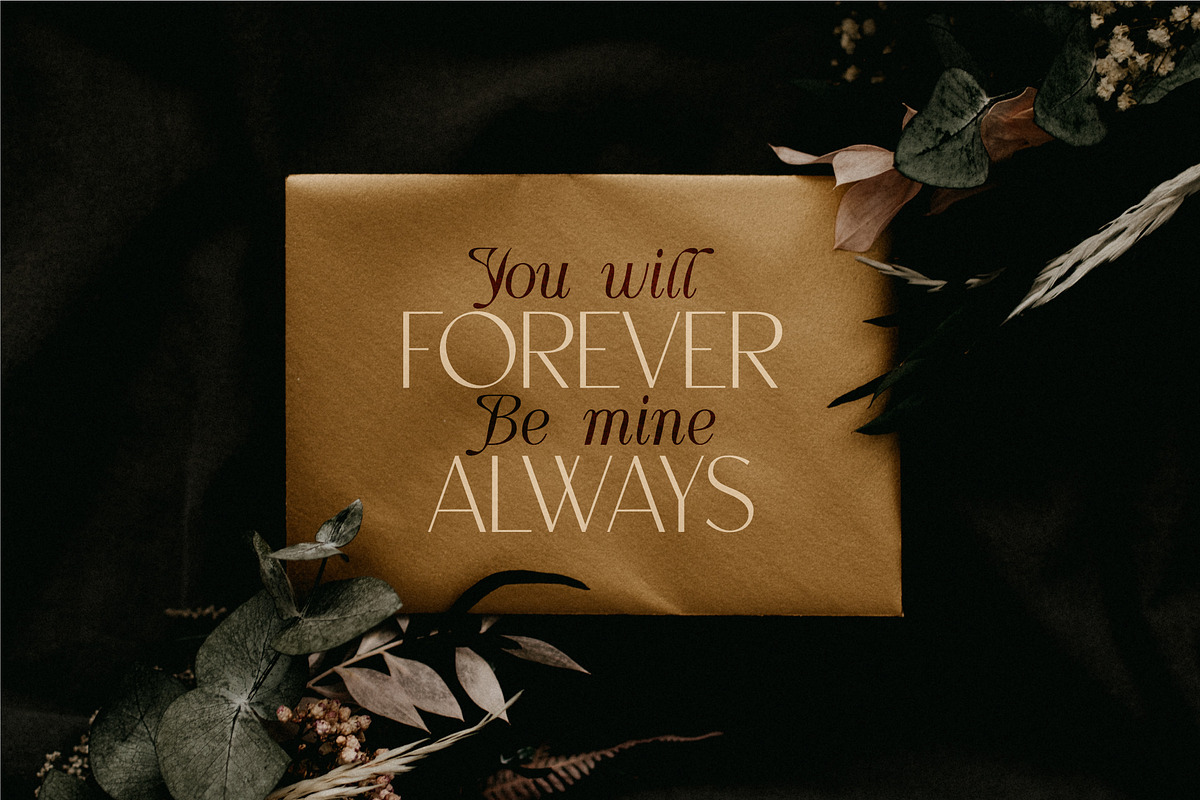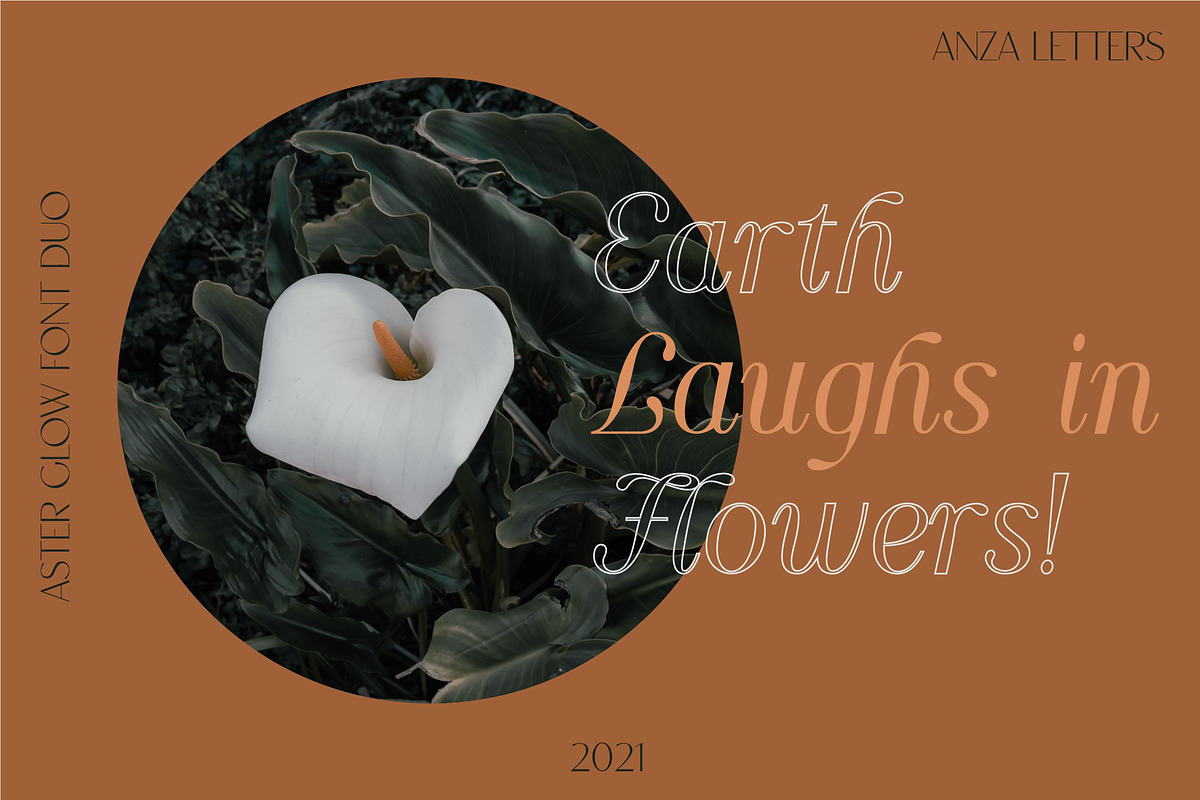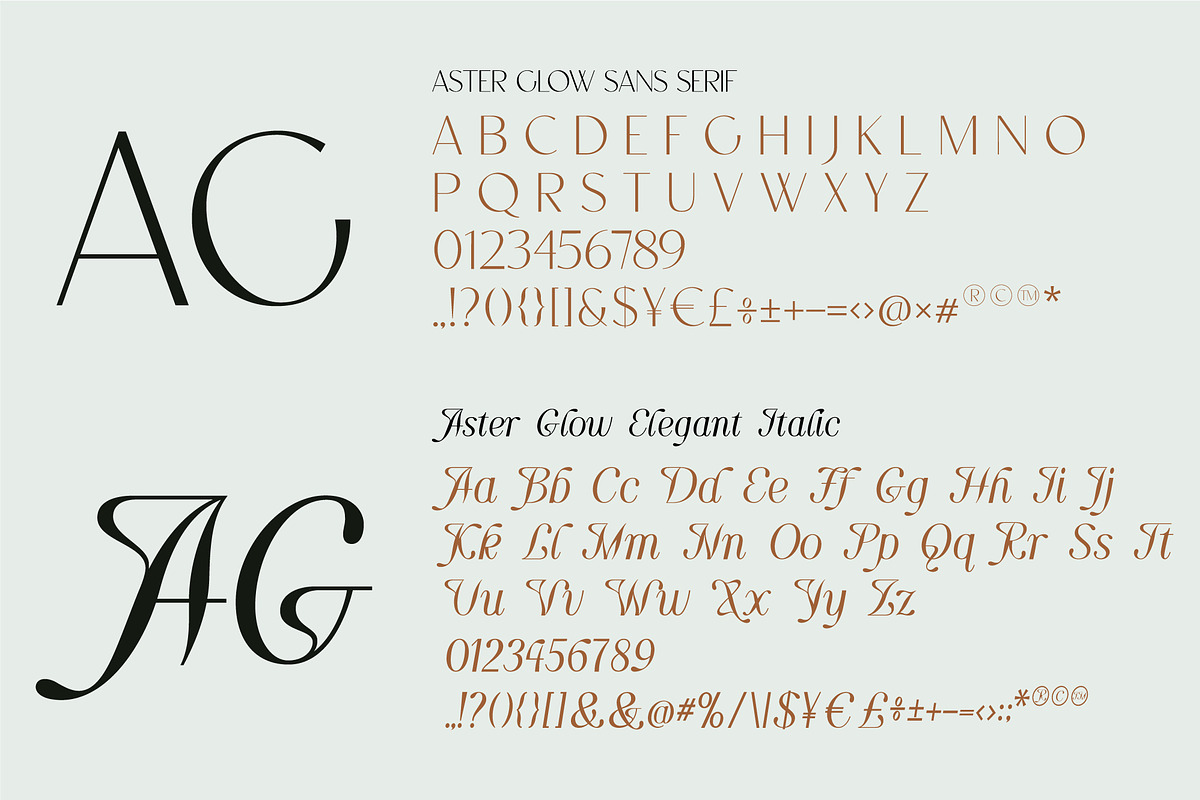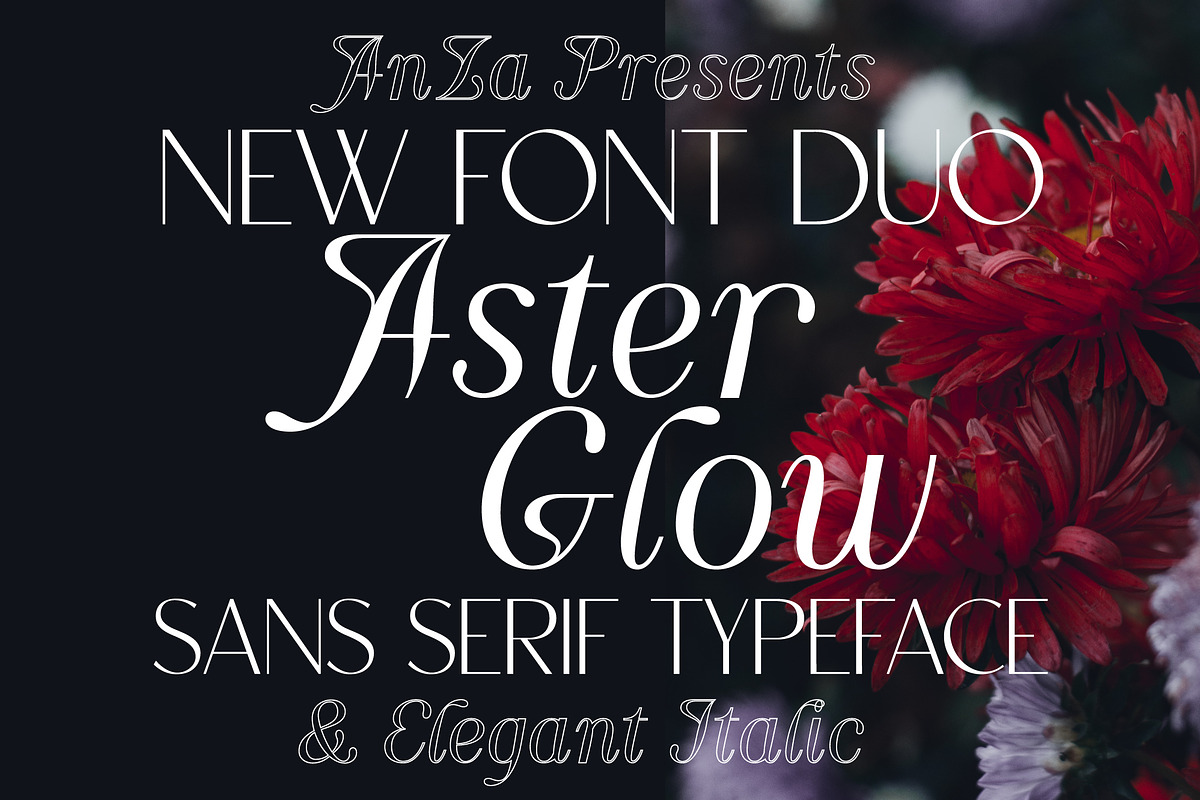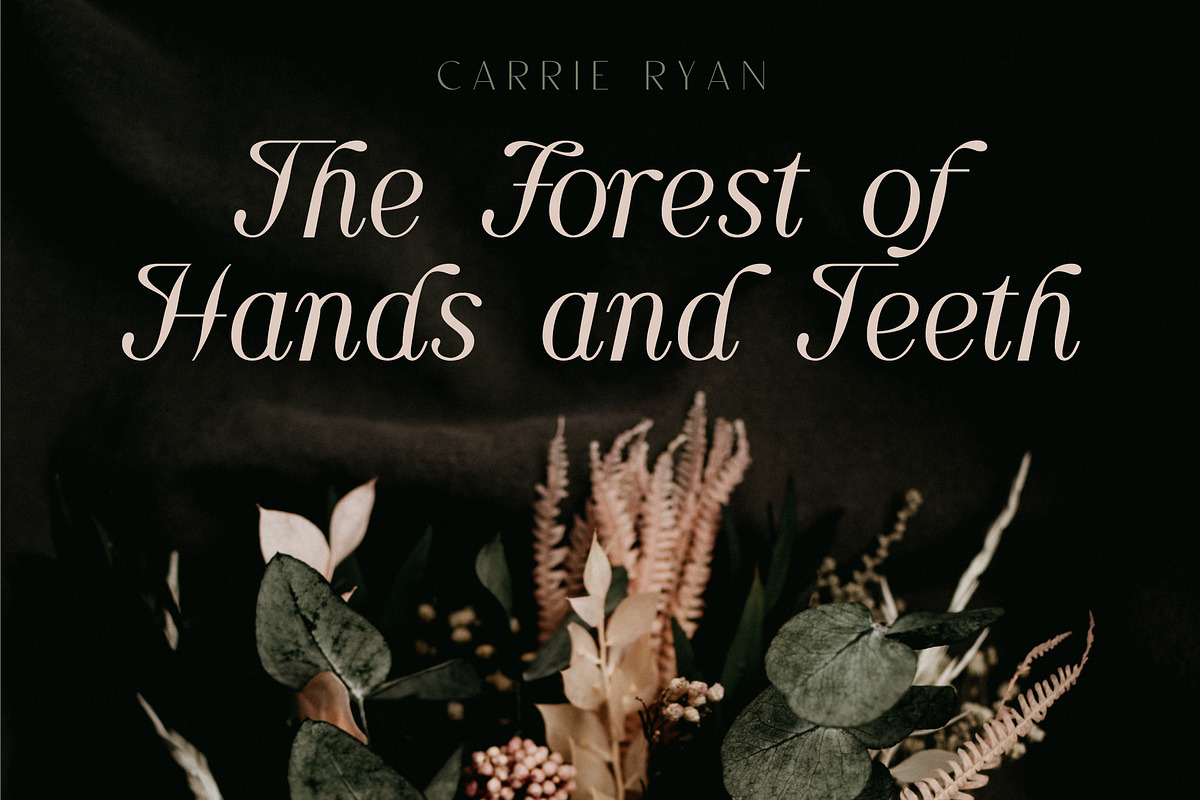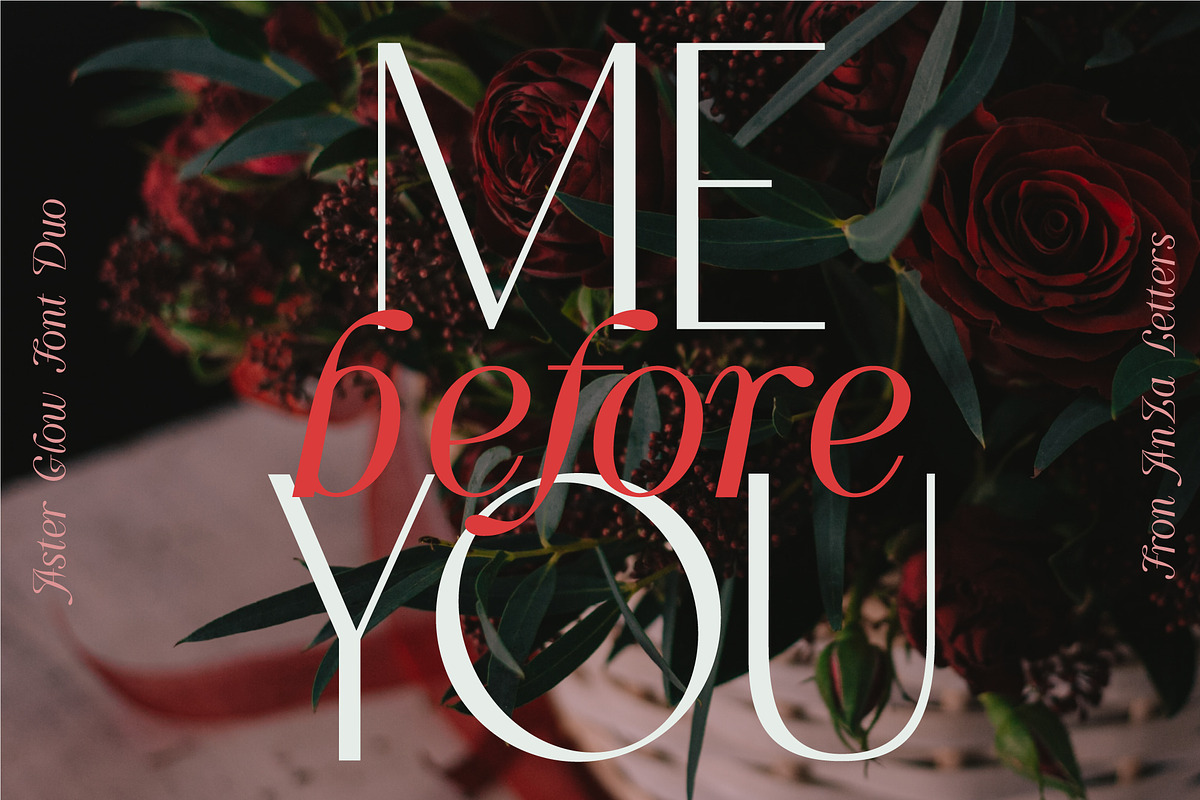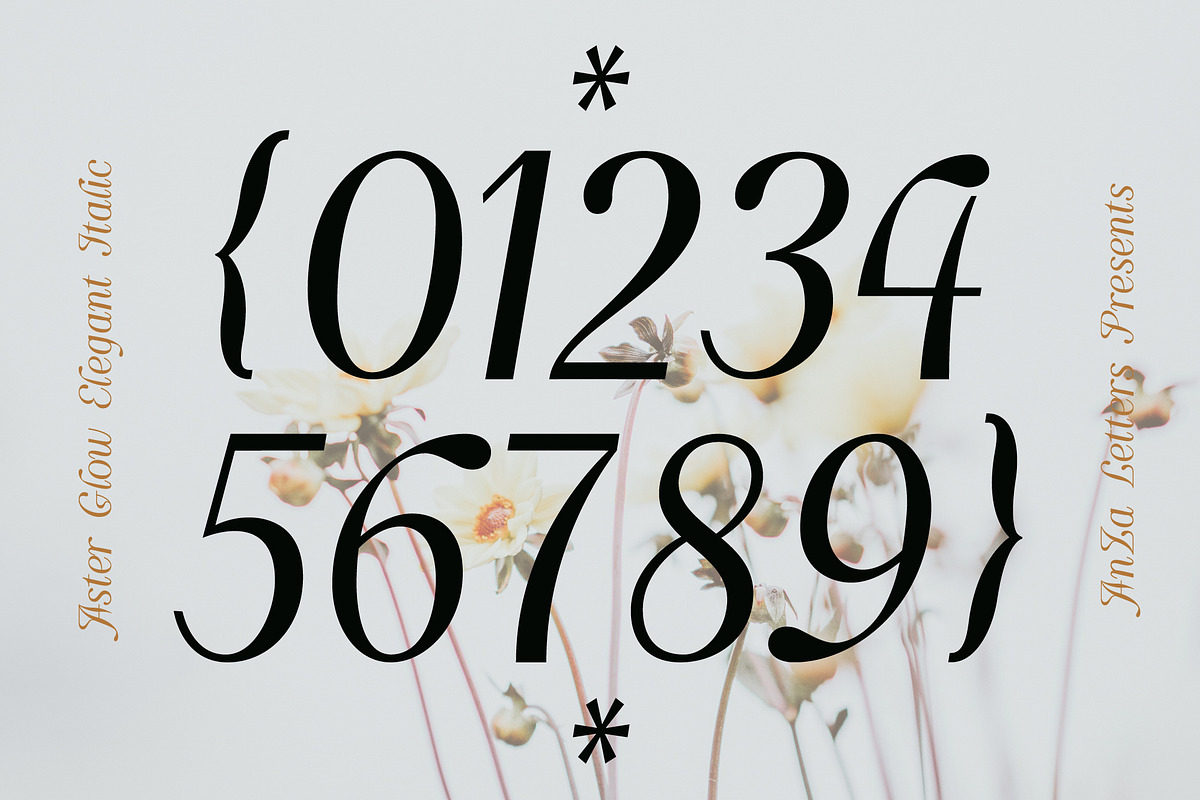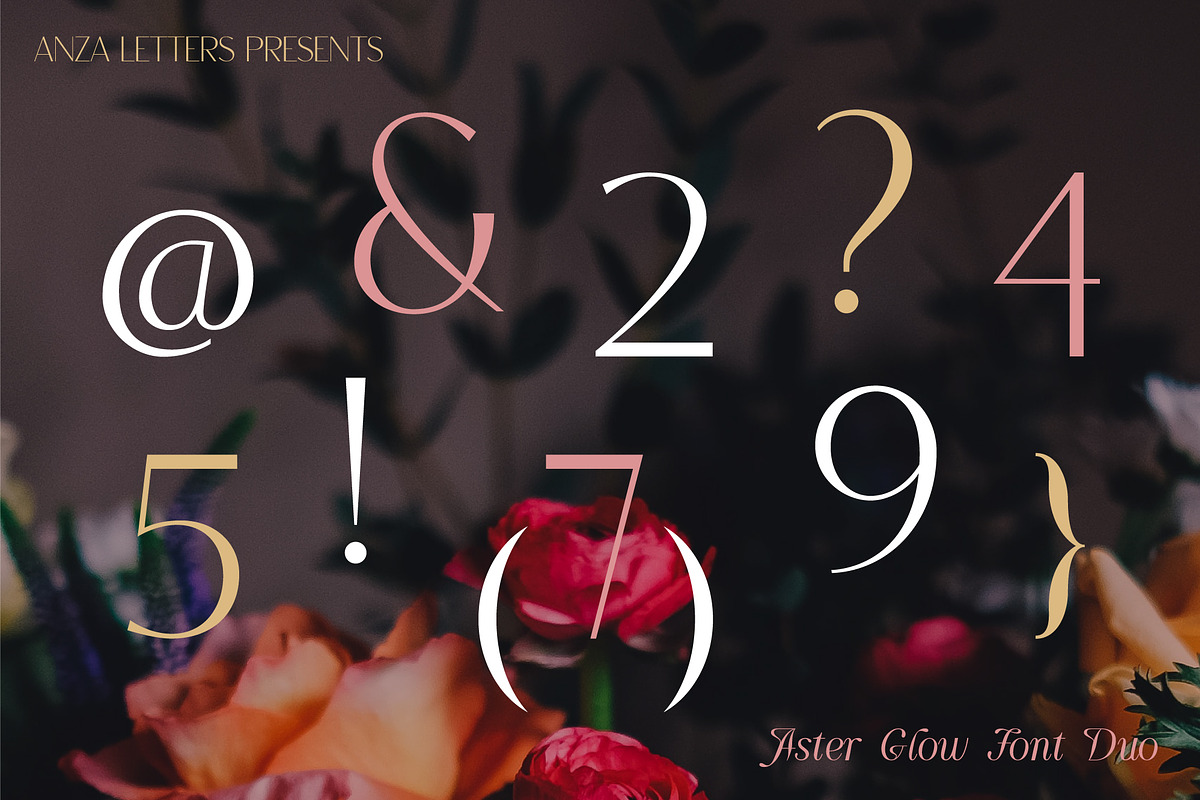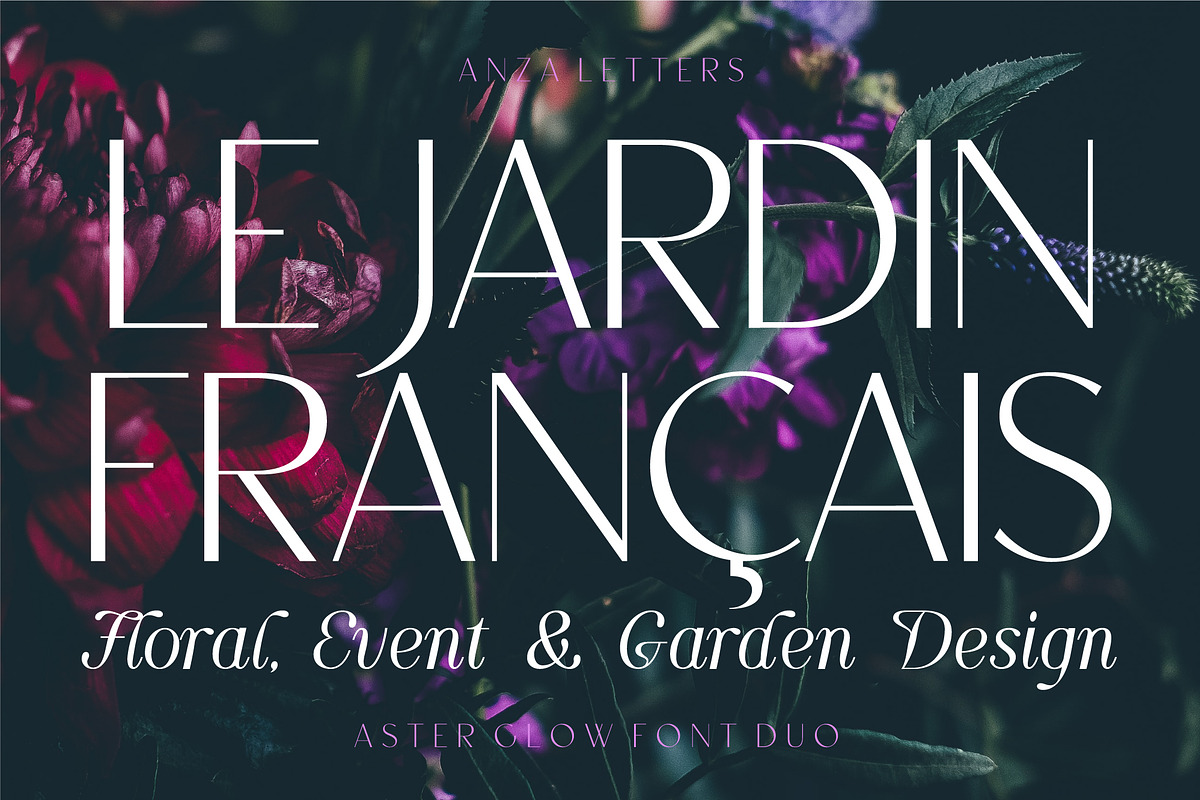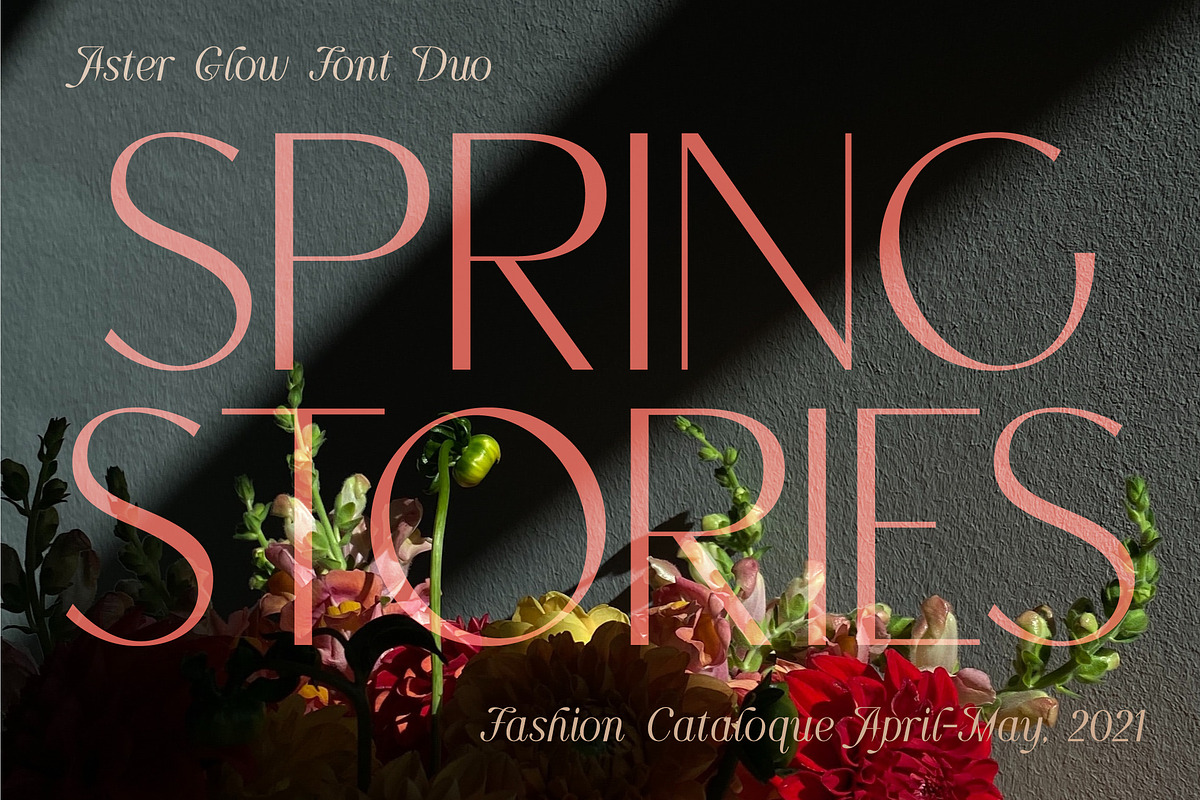
Aster Glow | Spring font duo
"Aster Glow is an ultra modern font duo". It is an elegant combination of "sans serif display typeface" and delicate "italic script".
It's a very "versatile font duo" that works great in large and small sizes. Perfect for editorial projects, magazine headers, Logo design, Clothing Branding, product packaging, magazine headers, or simply as a stylish text overlay to any background image.
"Aster Glow hosts 3 different styles:"
- Aster Glow Regular
- Aster Glow Outline
- Aster Glow Sans Serif
Aster Glow Regular and Outline has uppercase and lowercase characters, numbers and punctuations, multilingual support (French, German, Italian, Norwegian, Portuguese, Spanish, Swedish, Swiss German).
Aster Glow "Sans Serif Typeface" has uppercase characters, numbers and punctuations, multilingual support (French, German, Italian, Norwegian, Portuguese, Spanish, Swedish, Swiss German).